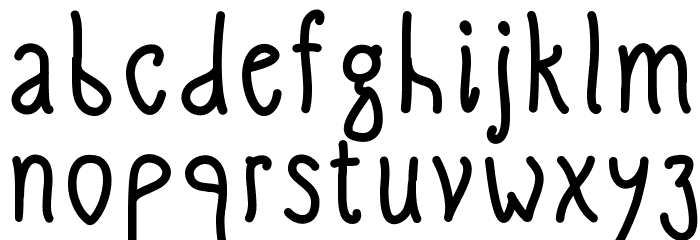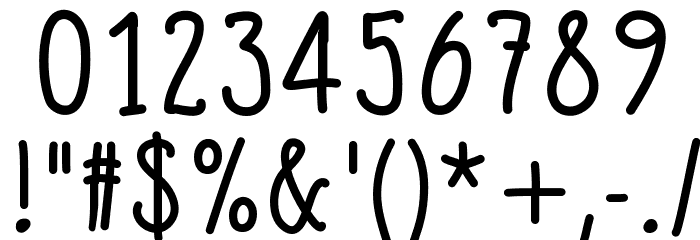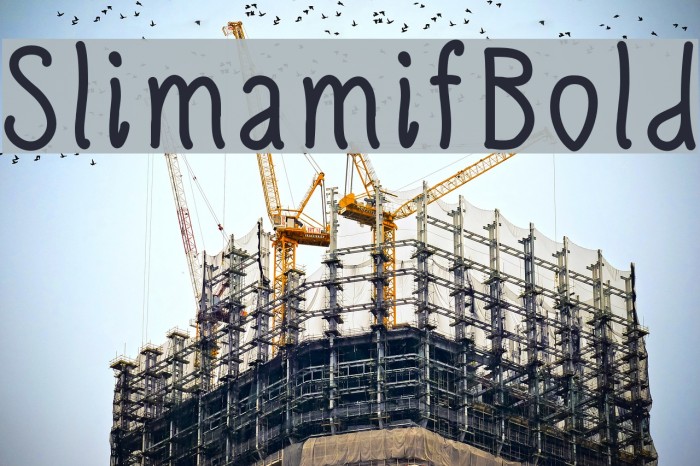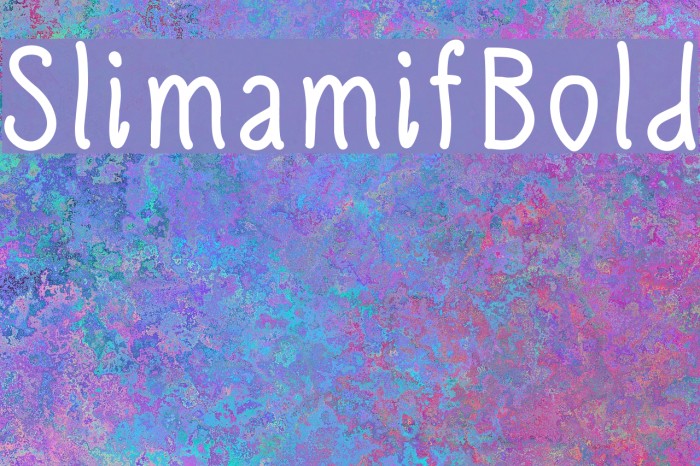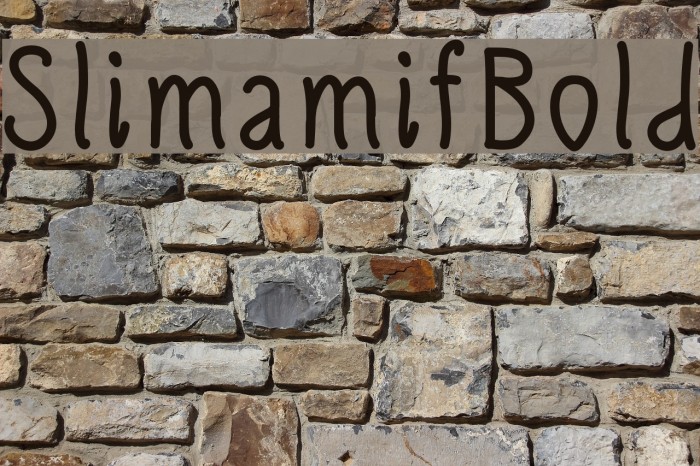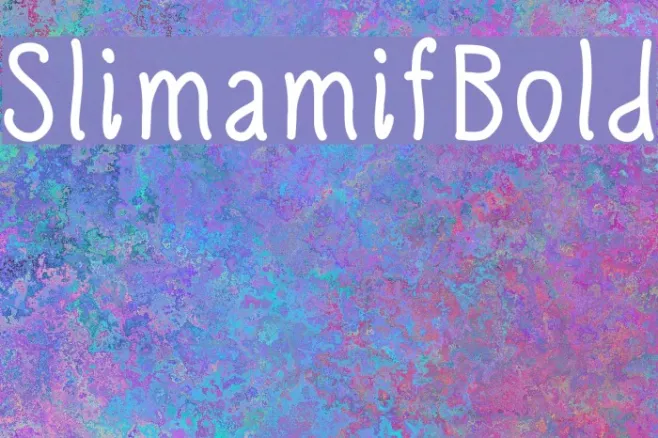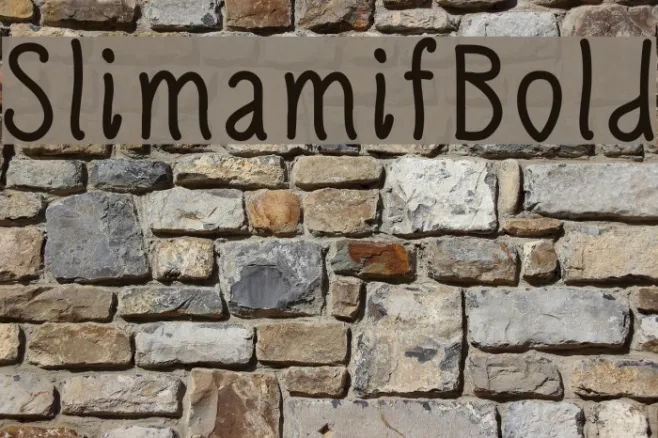
SlimamifBold Font
This font features a playful and casual handwritten style, characterized by its irregular strokes and whimsical appearance. The letters have a slightly uneven baseline, adding to the informal and friendly vibe. The uppercase and lowercase letters maintain a consistent style, with rounded edges and a slight tilt, giving them a dynamic and lively feel. The numbers and special characters follow the same playful design, making the font versatile for various creative projects. Its unique charm makes it suitable for designs that aim to convey a sense of fun and approachability.
A playful, handwritten font with a whimsical and casual style.
- Proposed Projects: Ideal for children's books, greeting cards, playful branding, and casual invitations.
- Overall Style: Casual
- Use Case: Headlines, Logos, Informal Text